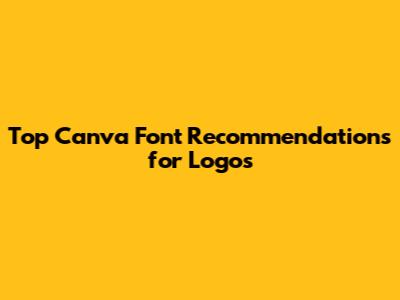
Top Canva Font Recommendations For Logos
Choosing the right font for your logo is super important, guys! It’s like picking the perfect outfit – it needs to match your brand's personality and make a great first impression. If you're using Canva, you're in luck because it has a ton of fonts to choose from. But, with so many options, it can get overwhelming, right? So, let's dive into some awesome Canva font recommendations that will make your logo pop and accurately represent your brand.
Why Font Choice Matters for Logos
Your logo font is more than just a bunch of letters; it's a key element of your brand's identity. Think of it as the voice of your company. A playful, rounded font might be great for a children's brand, while a sleek, modern font could suit a tech startup. The right font can communicate your brand's values, attract the right audience, and set you apart from competitors. Seriously, it's that powerful! A well-chosen font enhances brand recognition, making your logo memorable and easily identifiable. For instance, imagine Coca-Cola without its Spencerian script or Google without its playful, sans-serif font. These fonts are instantly recognizable and deeply associated with their brands.
When selecting a font, consider the emotional impact it creates. Serif fonts (like Times New Roman or Garamond) often convey tradition, reliability, and authority. They're great for brands that want to project a sense of history and trustworthiness. Sans-serif fonts (like Arial or Helvetica) tend to feel modern, clean, and approachable. They’re perfect for brands that want to appear contemporary and accessible. Script fonts (like Brush Script or Pacifico) can add a touch of elegance, creativity, or personality, but they should be used sparingly to ensure readability. Display fonts are unique and attention-grabbing, suitable for making a bold statement, but they might not be ideal for all-purpose use.
Readability is another critical factor. Your logo needs to be legible across various sizes and media, from business cards to billboards. A fancy, intricate font might look stunning on a large poster but turn into an unreadable mess when scaled down. Therefore, always test your font in different sizes and contexts to ensure it remains clear and impactful. Contrast is also important; make sure your font stands out against the background color. A light font on a light background, or a dark font on a dark background, will be difficult to read and diminish the effectiveness of your logo.
Consistency is key when it comes to branding. The font you choose for your logo should align with the fonts used in your other marketing materials, such as your website, social media graphics, and advertisements. This creates a cohesive brand image that reinforces recognition and builds trust with your audience. Using different fonts across different platforms can confuse customers and dilute your brand identity. Ultimately, the right font can significantly enhance your brand’s perception, making it more appealing, memorable, and trustworthy. So, take your time, explore different options, and choose a font that truly represents your brand’s essence.
Top Canva Font Recommendations
Alright, let's get to the good stuff! Here are some top Canva font recommendations perfect for logos, covering various styles to suit different brand vibes:
1. Montserrat
Why it's great: Montserrat is a clean, modern sans-serif font that’s super versatile. It’s highly readable and works well in various sizes, making it perfect for logos that need to look good on everything from business cards to websites. Montserrat exudes a sense of contemporary professionalism, making it an excellent choice for businesses aiming to convey a modern and approachable image.
Best for: Tech startups, creative agencies, and professional services. Think of companies that want to project a sense of innovation and clarity. Montserrat's simplicity and clarity make it a solid foundation for building a strong brand identity. Its clean lines and geometric forms provide a sense of structure and order, which can be particularly appealing to audiences seeking reliability and efficiency.
When using Montserrat, consider pairing it with a contrasting font for body text to create visual interest. For example, pairing Montserrat with a serif font like Merriweather can add a touch of elegance and readability to longer text passages. In logo design, Montserrat can be used in various weights, from light to bold, to create different effects. A lighter weight can convey sophistication and refinement, while a bolder weight can communicate strength and confidence. Experimenting with different letter spacing and capitalization can also help you achieve a unique look that sets your brand apart. Montserrat is not just a font; it’s a tool that can help you shape your brand’s visual identity and communicate its core values effectively. Its versatility and timeless appeal make it a reliable choice for businesses looking to establish a lasting presence in the market. So, whether you’re launching a new tech venture or rebranding an existing business, Montserrat is a font worth considering for your logo and overall branding strategy. Its clean, modern aesthetic will help you create a professional and approachable image that resonates with your target audience.
2. Playfair Display
Why it's great: Playfair Display is an elegant serif font with a touch of sophistication. It's perfect for brands that want to project a sense of luxury and refinement. The high contrast and delicate serifs make it stand out, adding a classic yet modern feel to any logo.
Best for: High-end fashion brands, beauty products, and boutique hotels. Imagine brands that want to evoke a sense of timeless elegance and exclusivity. Playfair Display's distinctive letterforms and graceful curves make it an excellent choice for logos that need to convey a sense of prestige and sophistication. Its classic roots combined with a contemporary twist ensure that it stands out in a crowded marketplace. When using Playfair Display, consider its impact on different media. While it shines in print, its delicate details may require careful attention when used online. Ensure that the font remains legible and sharp across various screen sizes. Pairing it with a simpler sans-serif font for body text can create a balanced and harmonious visual hierarchy. In logo design, Playfair Display can be used to create a sense of grandeur and sophistication. Its tall x-height and elegant serifs add a touch of refinement, making it ideal for brands that want to project a sense of luxury and exclusivity. Experimenting with different weights and styles can help you achieve a unique look that aligns with your brand’s identity. Playfair Display is more than just a font; it’s a statement of style and elegance. Its timeless appeal and distinctive character make it a valuable asset for businesses looking to establish a strong and memorable brand presence. So, whether you’re launching a new fashion line or rebranding a luxury hotel, Playfair Display is a font worth considering for your logo and overall branding strategy. Its elegant and sophisticated aesthetic will help you create a premium image that resonates with your target audience.
3. Raleway
Why it's great: Raleway is a sleek, sans-serif font that’s both modern and stylish. It works beautifully for logos that need to look contemporary and sophisticated. Its versatility makes it a great choice for a wide range of brands.
Best for: Modern startups, design agencies, and tech companies. Think of businesses that want to project a sense of innovation and forward-thinking. Raleway's clean lines and geometric forms make it an excellent choice for logos that need to convey a sense of clarity and precision. Its contemporary aesthetic ensures that it remains relevant and appealing to modern audiences. When using Raleway, consider its versatility across different applications. It works equally well in print and digital media, making it a reliable choice for logos and other branding materials. Pairing it with a contrasting serif font for body text can create a balanced and visually appealing design. In logo design, Raleway can be used in various weights and styles to achieve different effects. A lighter weight can convey sophistication and elegance, while a bolder weight can communicate strength and confidence. Experimenting with different letter spacing and capitalization can also help you create a unique look that sets your brand apart. Raleway is more than just a font; it’s a tool that can help you shape your brand’s visual identity and communicate its core values effectively. Its versatility and modern appeal make it a valuable asset for businesses looking to establish a strong and contemporary presence in the market. So, whether you’re launching a new tech startup or rebranding a design agency, Raleway is a font worth considering for your logo and overall branding strategy. Its sleek and modern aesthetic will help you create a professional and innovative image that resonates with your target audience.
4. Bebas Neue
Why it's great: Bebas Neue is a tall, condensed sans-serif font that’s perfect for making a bold statement. It’s great for logos that need to stand out and grab attention. Its clean, geometric design makes it highly readable and versatile.
Best for: Sports brands, fitness companies, and modern cafes. Imagine businesses that want to project a sense of energy and dynamism. Bebas Neue’s tall and narrow letterforms make it an excellent choice for logos that need to make a big impact in a limited space. Its clean and modern aesthetic ensures that it remains relevant and appealing to contemporary audiences. When using Bebas Neue, consider its impact on different media. While it shines in print, its condensed design may require careful attention when used online. Ensure that the font remains legible and sharp across various screen sizes. Pairing it with a simpler and wider font for body text can create a balanced and visually appealing design. In logo design, Bebas Neue can be used to create a sense of boldness and confidence. Its tall x-height and strong vertical lines add a sense of power and energy, making it ideal for brands that want to project a sense of strength and dynamism. Experimenting with different letter spacing and capitalization can also help you create a unique look that aligns with your brand’s identity. Bebas Neue is more than just a font; it’s a tool that can help you shape your brand’s visual identity and communicate its core values effectively. Its bold and modern appeal make it a valuable asset for businesses looking to establish a strong and memorable presence in the market. So, whether you’re launching a new sports brand or rebranding a modern cafe, Bebas Neue is a font worth considering for your logo and overall branding strategy. Its energetic and dynamic aesthetic will help you create a bold and impactful image that resonates with your target audience.
5. Pacifico
Why it's great: Pacifico is a fun, handwritten-style font that adds a personal touch to any logo. It's perfect for brands that want to appear friendly and approachable. Its flowing lines and cheerful vibe make it instantly appealing.
Best for: Bakeries, children's brands, and lifestyle blogs. Think of businesses that want to project a sense of warmth and authenticity. Pacifico's playful and casual letterforms make it an excellent choice for logos that need to convey a sense of friendliness and approachability. Its handwritten style adds a personal touch, making it ideal for brands that want to connect with their audience on a more emotional level. When using Pacifico, consider its impact on different media. While it shines in print, its cursive style may require careful attention when used online. Ensure that the font remains legible and sharp across various screen sizes. Pairing it with a simpler sans-serif font for body text can create a balanced and visually appealing design. In logo design, Pacifico can be used to create a sense of fun and creativity. Its flowing lines and cheerful vibe add a touch of personality, making it ideal for brands that want to stand out from the crowd. Experimenting with different colors and effects can also help you create a unique look that aligns with your brand’s identity. Pacifico is more than just a font; it’s a tool that can help you shape your brand’s visual identity and communicate its core values effectively. Its playful and approachable appeal make it a valuable asset for businesses looking to establish a strong and memorable presence in the market. So, whether you’re launching a new bakery or rebranding a lifestyle blog, Pacifico is a font worth considering for your logo and overall branding strategy. Its cheerful and friendly aesthetic will help you create a warm and inviting image that resonates with your target audience.
Tips for Choosing the Right Font
Choosing the perfect font for your logo isn't just about picking something that looks cool. Here are some tips to help you nail it:
• Understand Your Brand: What's your brand's personality? Are you fun and playful, or serious and professional? Choose a font that reflects your brand's vibe.
• Consider Your Audience: Who are you trying to reach? A font that appeals to teenagers might not work for a corporate audience.
• Keep it Simple: Avoid overly complicated fonts that are hard to read. Your logo should be legible at a glance.
• Test it Out: See how the font looks in different sizes and contexts. Make sure it's clear on both print and digital media.
• Pairing is Key: If you're using multiple fonts, make sure they complement each other. A good font pairing can elevate your entire design.
Final Thoughts
So there you have it – some fantastic Canva font recommendations to get you started on your logo design journey! Remember, the right font can make all the difference in how your brand is perceived. Take your time, experiment with different options, and choose a font that truly represents your brand's unique identity. Good luck, and happy designing!